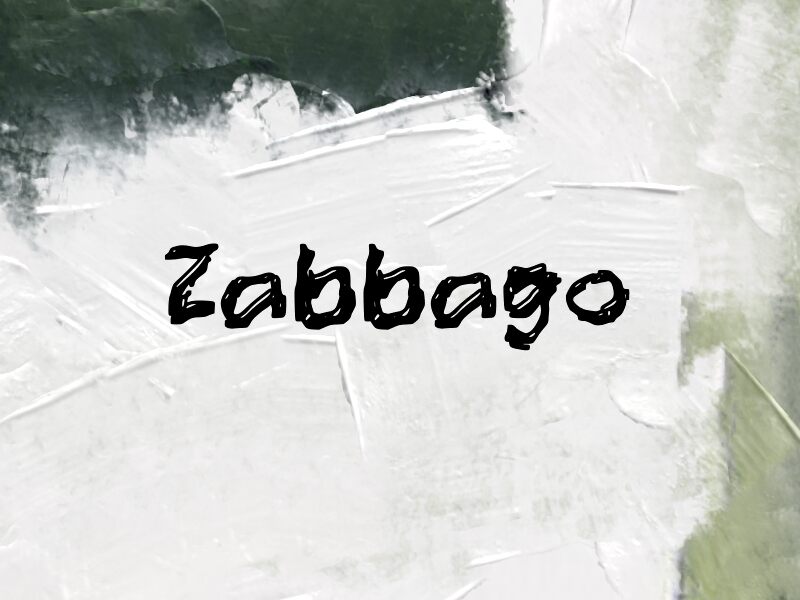
Zabbago by Wep is a free brush font shaped by swollen strokes, uneven edges, and small ink-pool openings that make the lettering feel wet and hand-daubed rather than neatly brushed. That blobby texture repeats across the set, giving the design a loose, gummy rhythm instead of the quick snap usually associated with brush scripts.
Its soft, puddled forms make sense on food packaging, kids' posters, casual logos, sticker graphics, and social posts where clean precision would feel too stiff. Short headlines and product names benefit most, because the rounded, oozing texture gives each word a strong graphic presence without needing extra decoration.
Zabbago
Zabbago font presentation and specimen